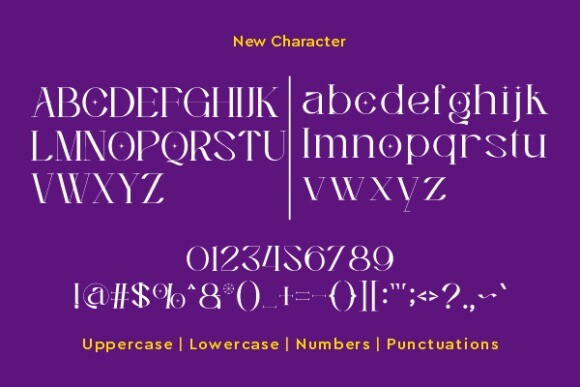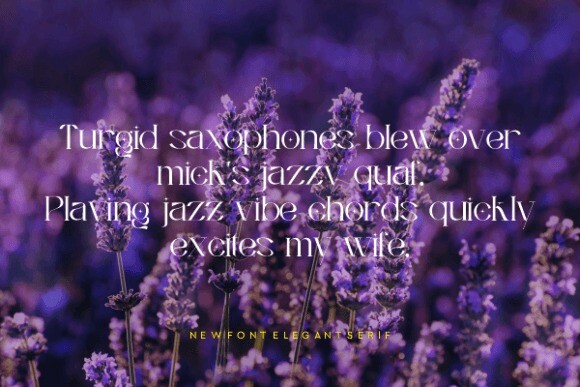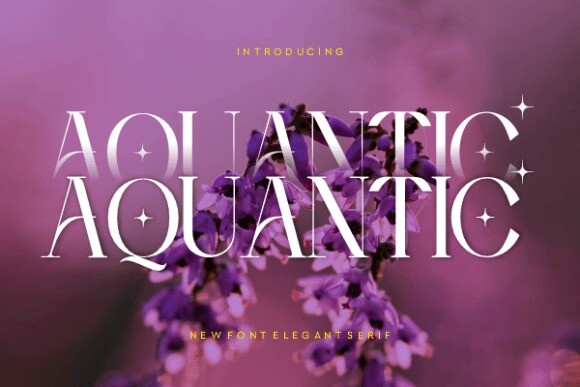
Aquantic Font
Designer: sinduamiw
Aquantic Font is a stylish serif font that seamlessly combines classic elegance with a modern twist.
The carefully crafted letterforms exude sophistication, bringing a touch of refinement to your designs.
Ideal for projects that demand a timeless yet contemporary aesthetic, this font adds a distinctive charm to your typographic expression.